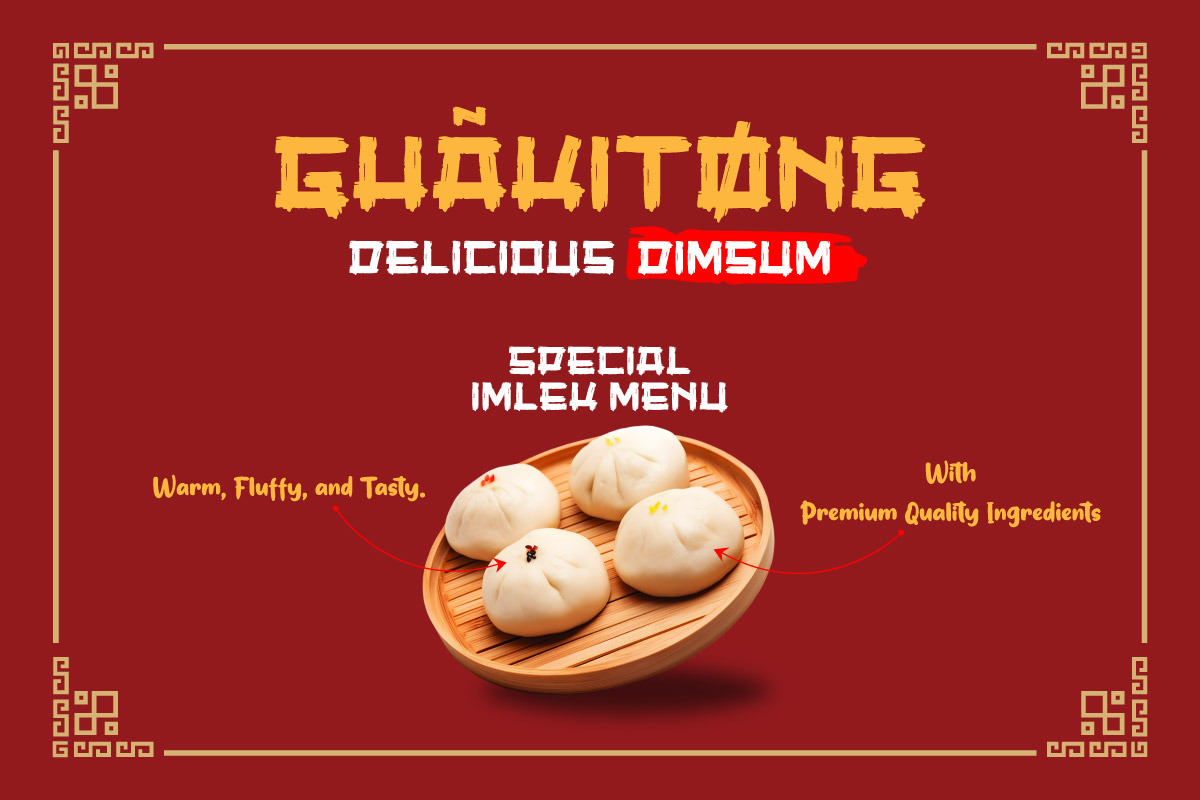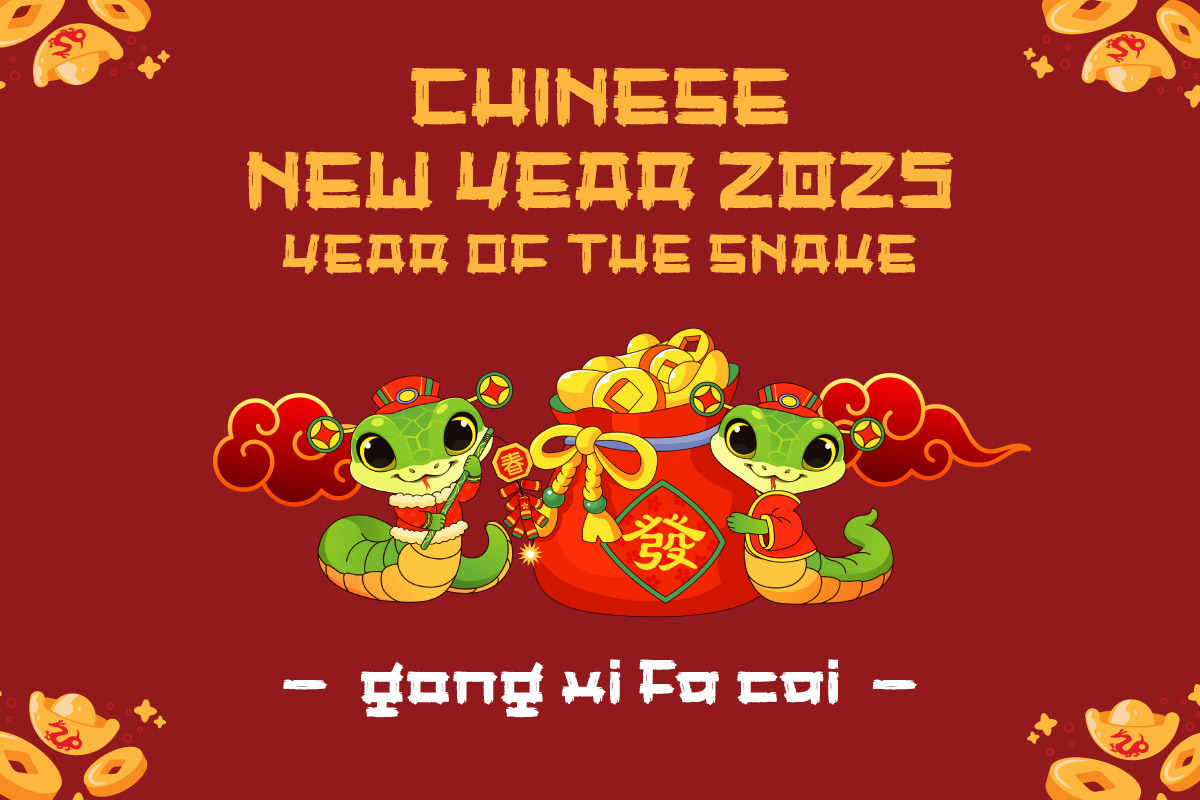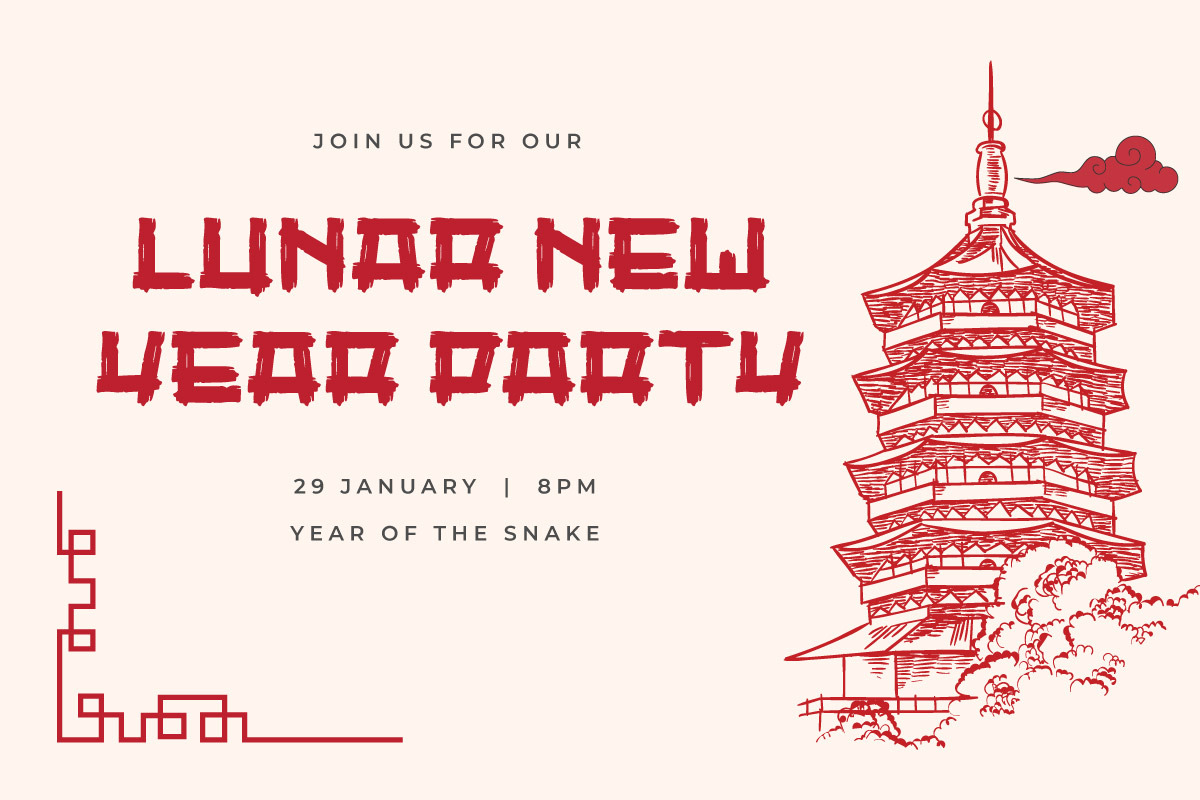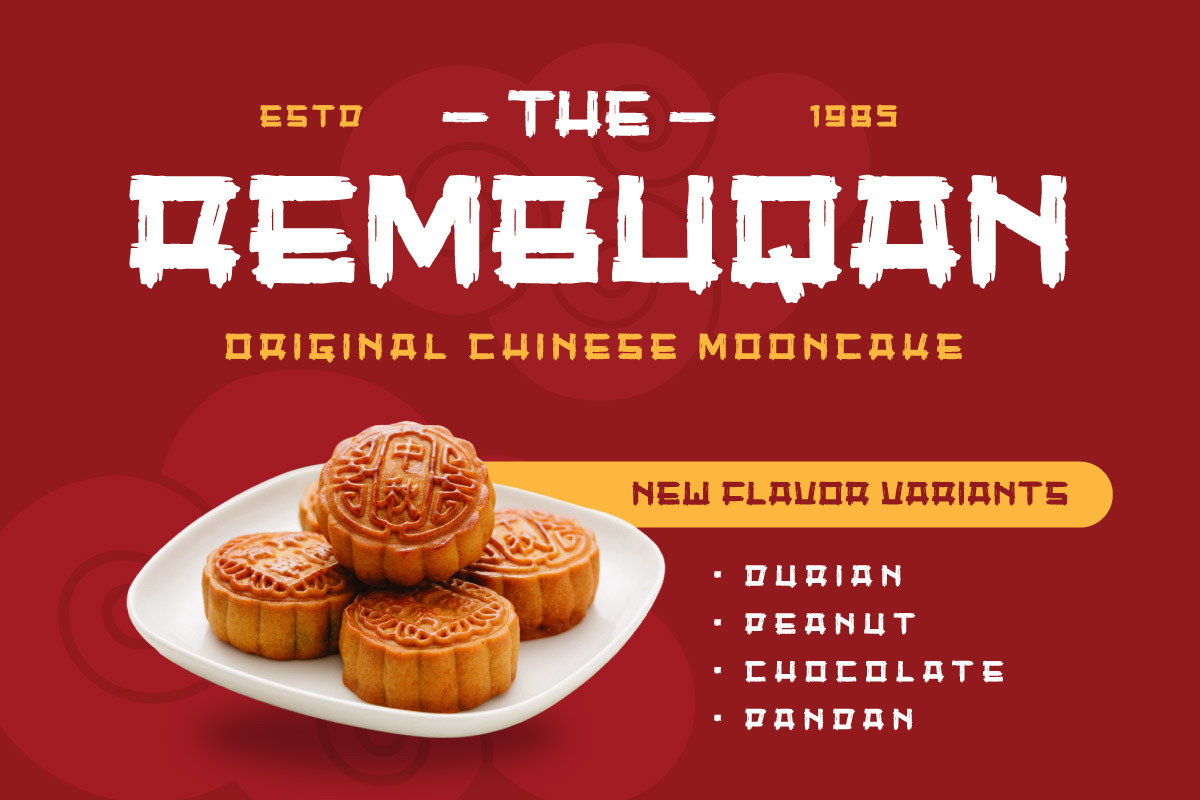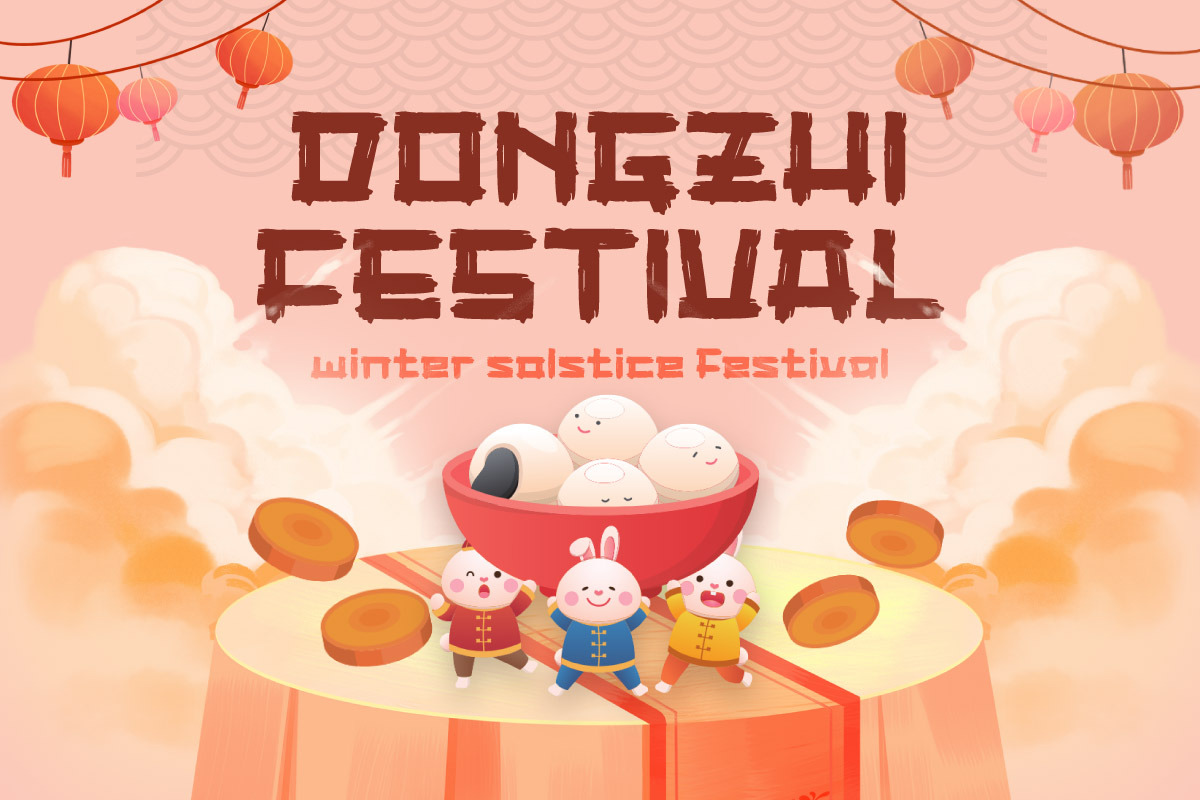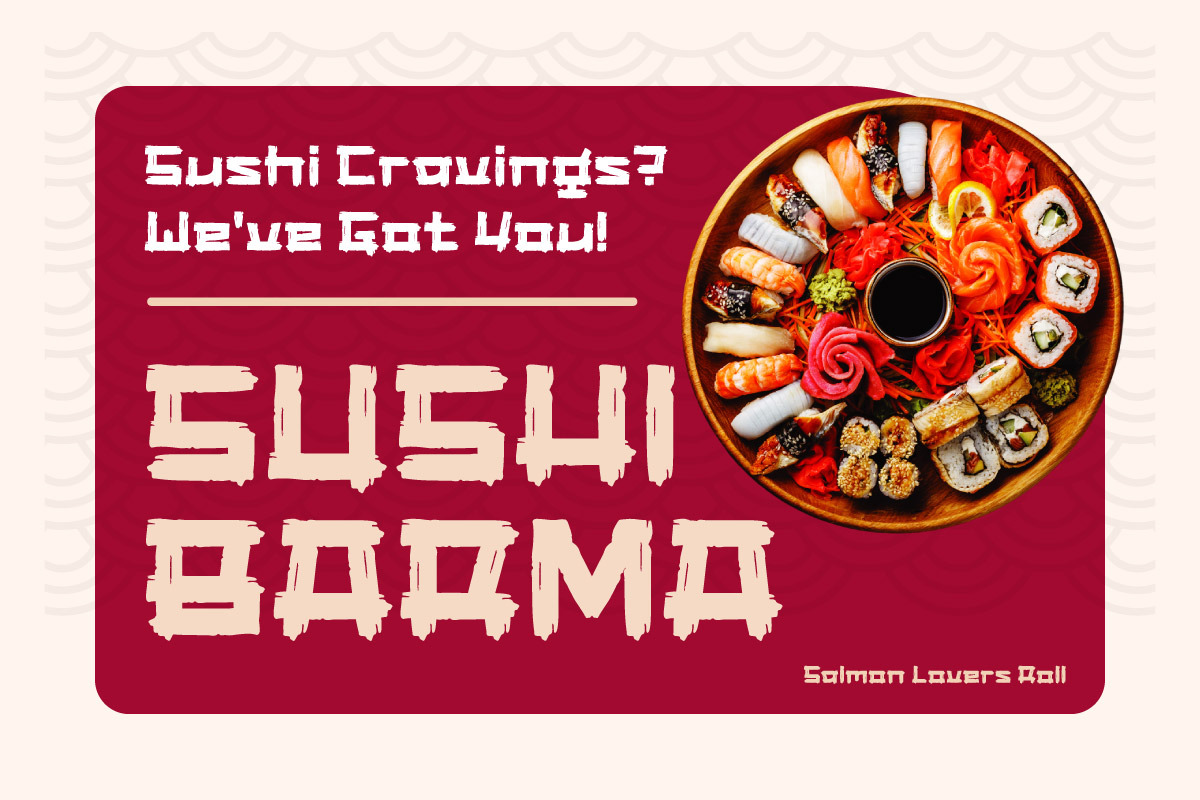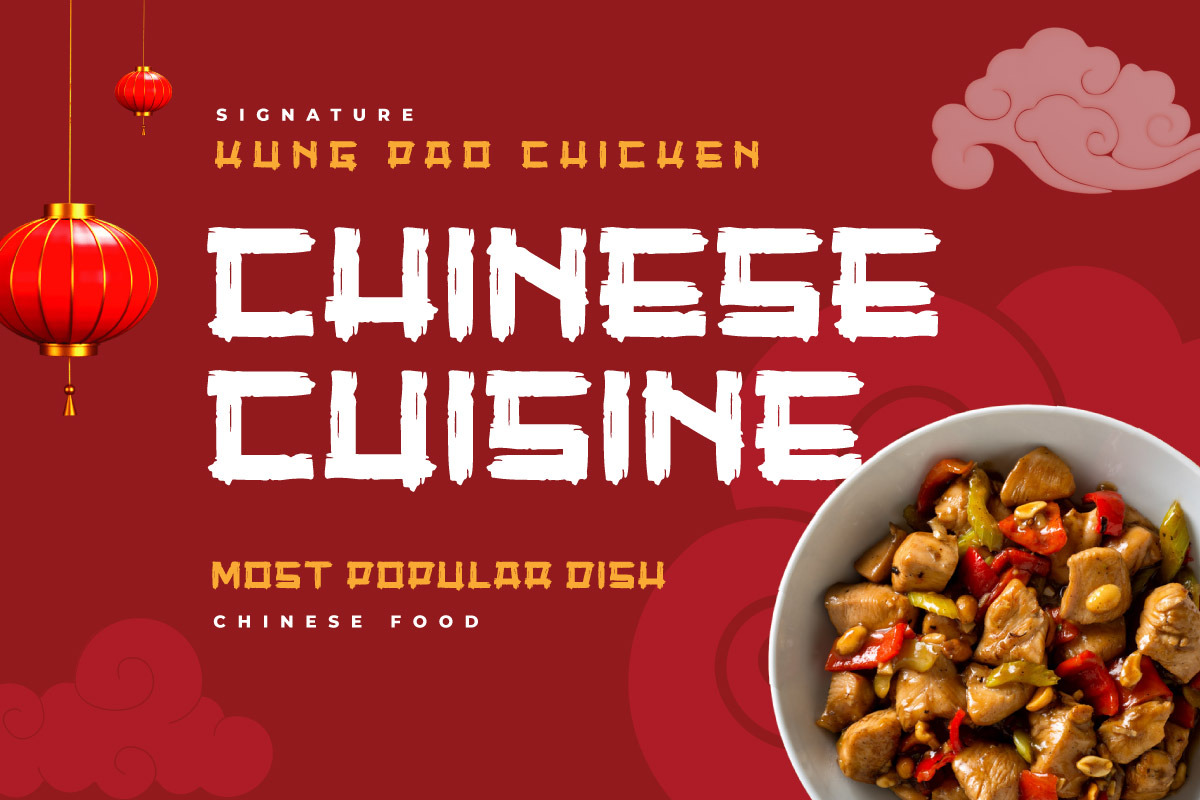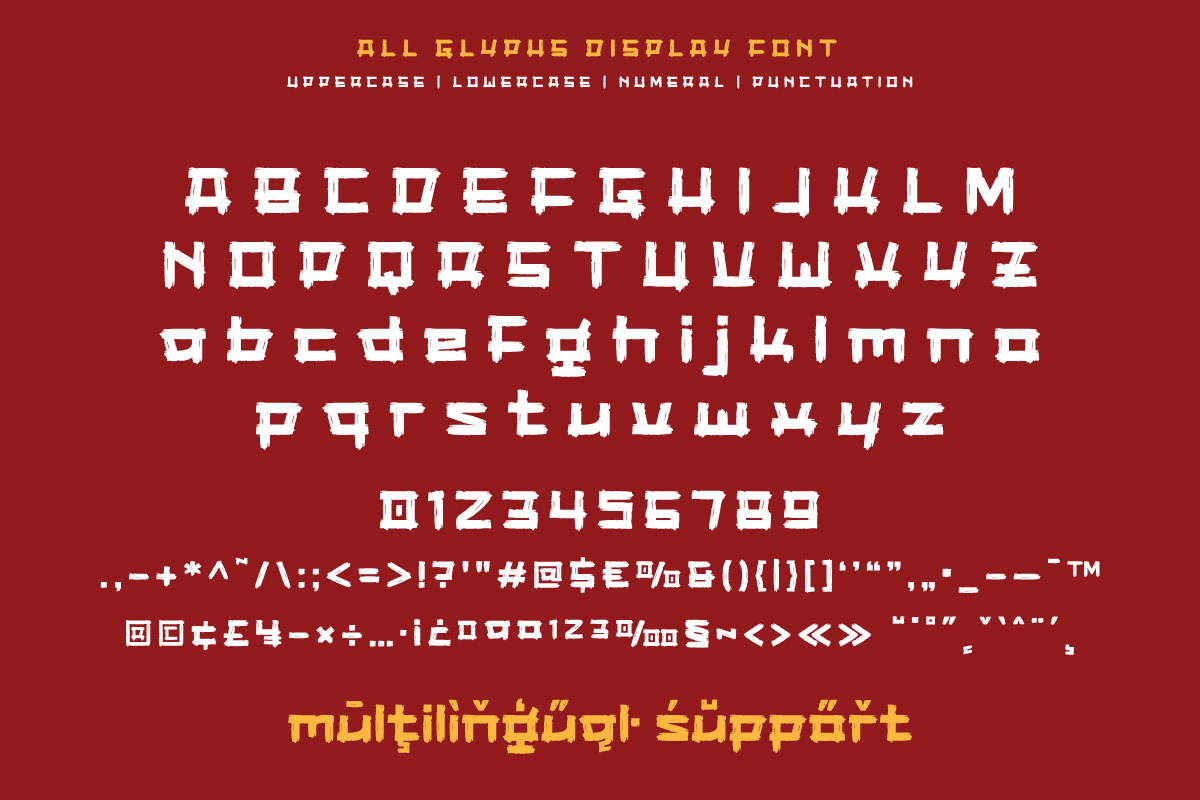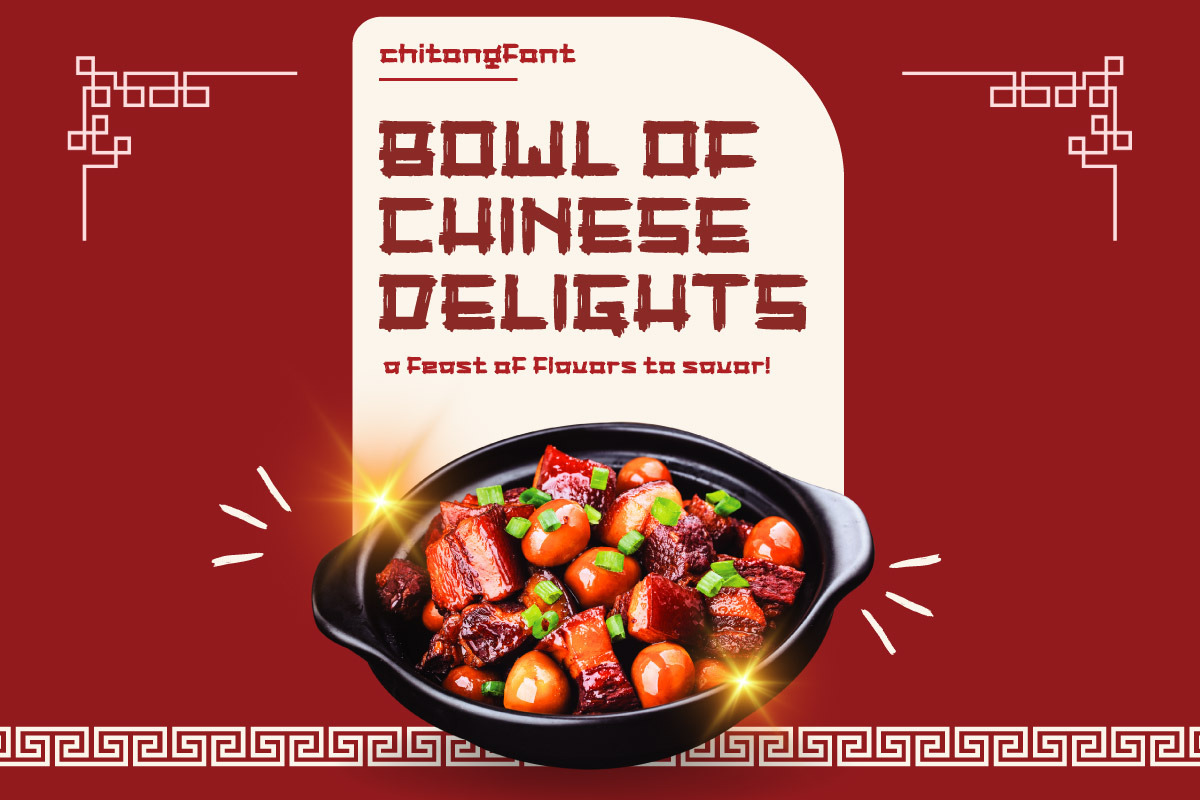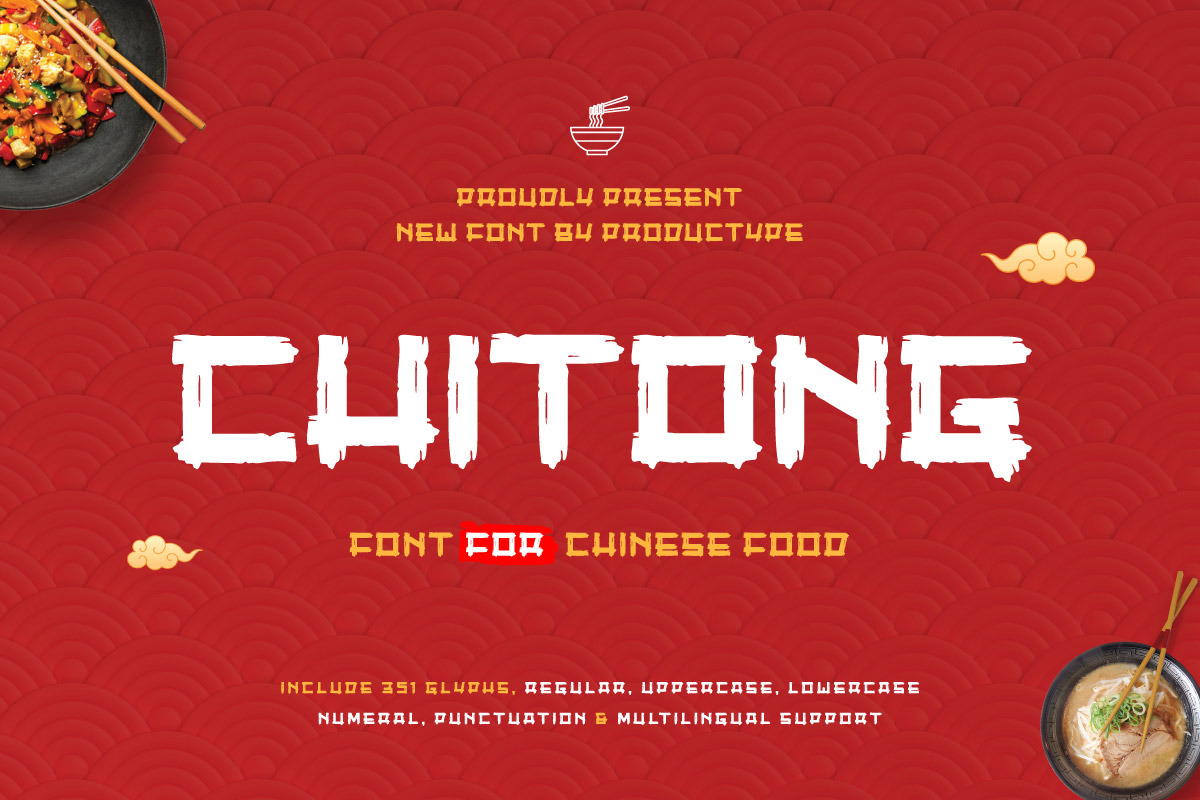
Chitong - Chinese Food Font
Bring the charm of oriental culture to your designs with Chitong - Chinese Food Font! This unique font blends traditional Chinese aesthetics with dynamic brush strokes, creating an authentic and captivating look. Perfect for various creative projects such as Asian restaurant menus, food branding, promotional posters, and video marketing.
With its bold and elegant character details, Chitong is designed to grab attention and add a professional touch to any project. Ideal for graphic designers, freelancers, videographers, art directors, and marketers looking to highlight exotic and sophisticated elements. Don’t miss the chance to elevate your visual appeal with this font that brings your work to life!